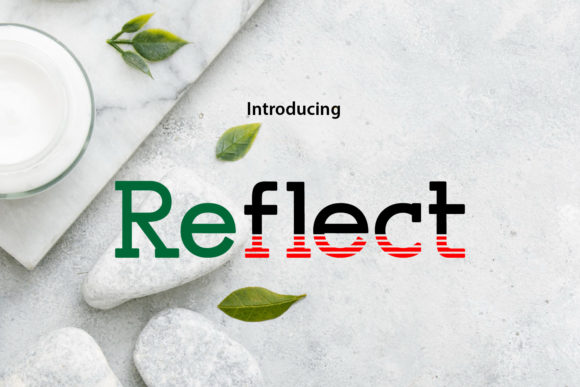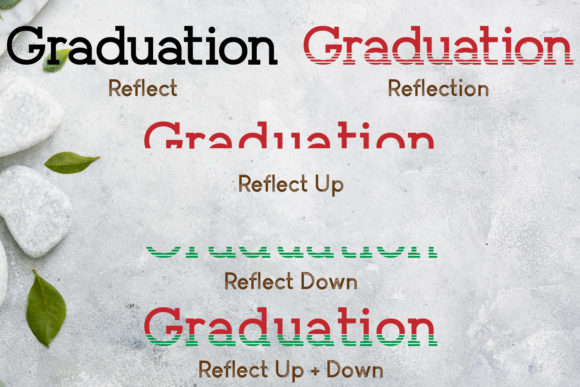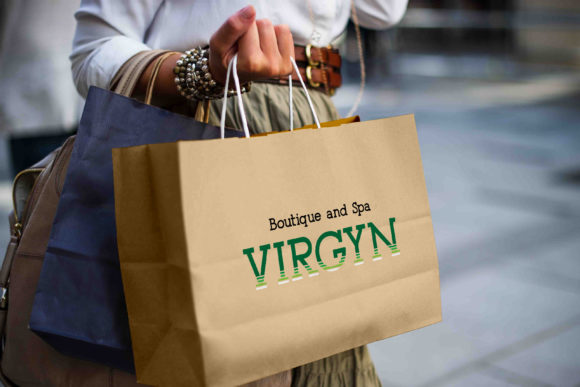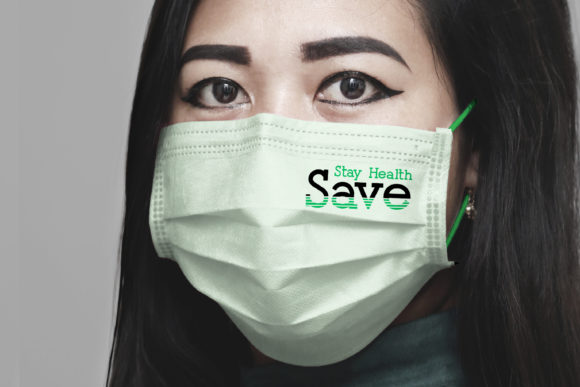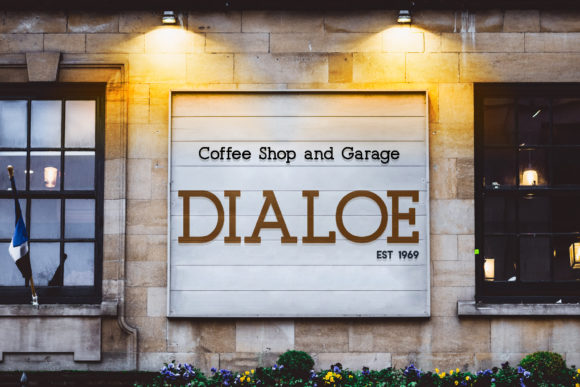
Reflection
Reflection: A Fresh and Versatile Slab Serif Font
Reflection is a distinctive slab serif font that combines freshness with versatility. This typeface offers designers a powerful tool for creating impactful typography across a wide range of design projects.
Key Features of Reflection
• Fresh Design: Features a contemporary and innovative approach to slab serif typography
• Versatile Application: Suitable for an incredibly large set of projects
• Slab Serif Structure: Incorporates the characteristic thick, rectangular serifs typical of slab serif fonts
• Stand-Out Quality: Designed to make creative ideas pop and grab attention
• Adaptable Style: Easily matches various design contexts and themes
Ideal Uses for Reflection
Reflection’s unique characteristics make it particularly well-suited for:
• Modern branding and logo design
• Editorial layouts and magazine designs
• Website headers and digital content
• Packaging design for contemporary products
• Poster and advertisement layouts
When incorporating Reflection into your designs, consider the following tips:
• Use for both headlines and body text to showcase its versatility
• Experiment with different sizes to create hierarchy while maintaining readability
• Pair with sans-serif fonts for a balanced, contemporary look
• Consider using it in projects where you want to convey a fresh, modern vibe
Reflection is an excellent choice for designers looking to add a fresh and versatile slab serif to their typographic toolkit. Its contemporary design and adaptability make it stand out in the world of typography. Whether you’re working on logo designs, creating layouts for editorial projects, or developing branding for various businesses, Reflection offers the perfect blend of modernity and versatility.
Explore how Reflection can bring a fresh edge to your creative ideas. From contemporary branding to engaging digital content, this font provides the tools to create impactful and memorable typography that stands out in various design contexts. Add Reflection to your projects and watch how it elevates your designs to new heights of visual appeal and freshness.